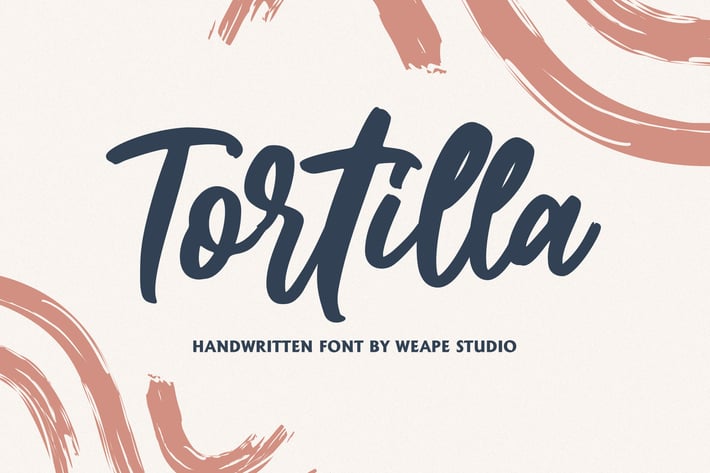
Tortilla - Handwritten Font
Introducing Tortilla Handwritten Font, script with unique strokes make it beautiful and look natural as written by hand.
Tortilla is perfect for signature, branding, wedding, fashion, photography title, poster, social media, music album, book cover, packaging, handwritten quotes, greeting cards and advertising.
All fonts containing upper & lowercase characters, numerals, punctuation.